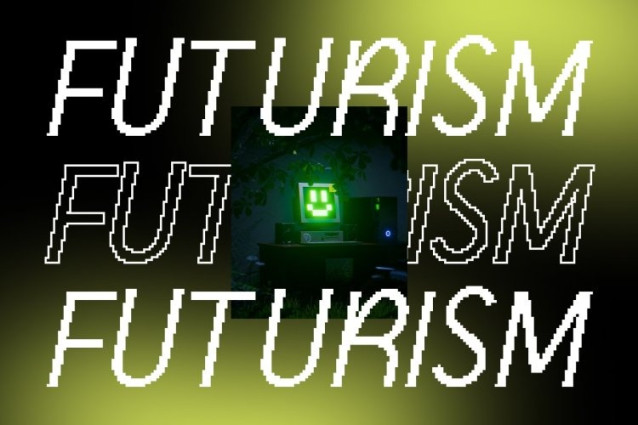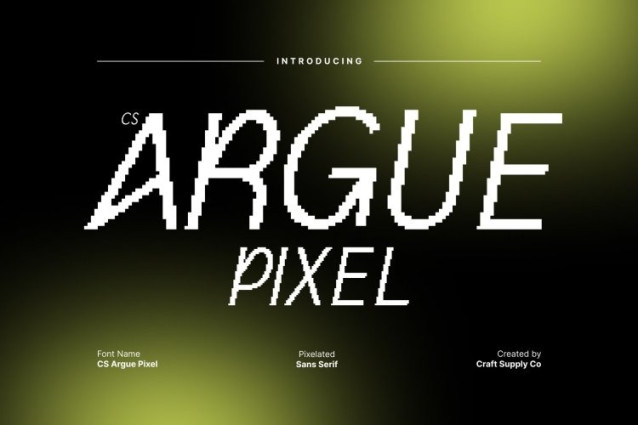
CS Argue Pixel Font This is a modern sans serif font translated into a distinctive pixel-based design that blends clean structure with quirky, experimental expression. Built on a contemporary typographic foundation, this pixel version transforms smooth forms into crisp 8-bit shapes, creating a font that feels digital, playful, and visually unique.
Quirky Pixel Details with Clean Geometry
What makes this font stand out is its balance between simplicity and character. Subtle quirks appear through unconventional pixel cuts, playful proportions, and unexpected details that add personality without overwhelming readability. The structured pixel grid keeps the font clean and controlled, while the experimental touches give it a fun, expressive edge that feels intentional and stylish.
Trendy Digital Look with Retro Energy
This font captures the spirit of modern design culture infused with nostalgic 8-bit aesthetics. It feels trendy, creative, and slightly rebellious perfect for designers who want something different but still polished. The pixel construction adds a digital, old-school gaming vibe while maintaining a fresh and contemporary tone.
Perfect for Branding, Games, and Creative Digital Design
This font is ideal for modern branding, creative logos, posters, editorials, game visuals, social media graphics, and digital layouts. Its clean yet quirky pixel character makes it especially effective for fashion brands, creative studios, lifestyle projects, and retro-modern campaigns that want to stand out with confidence and personality.